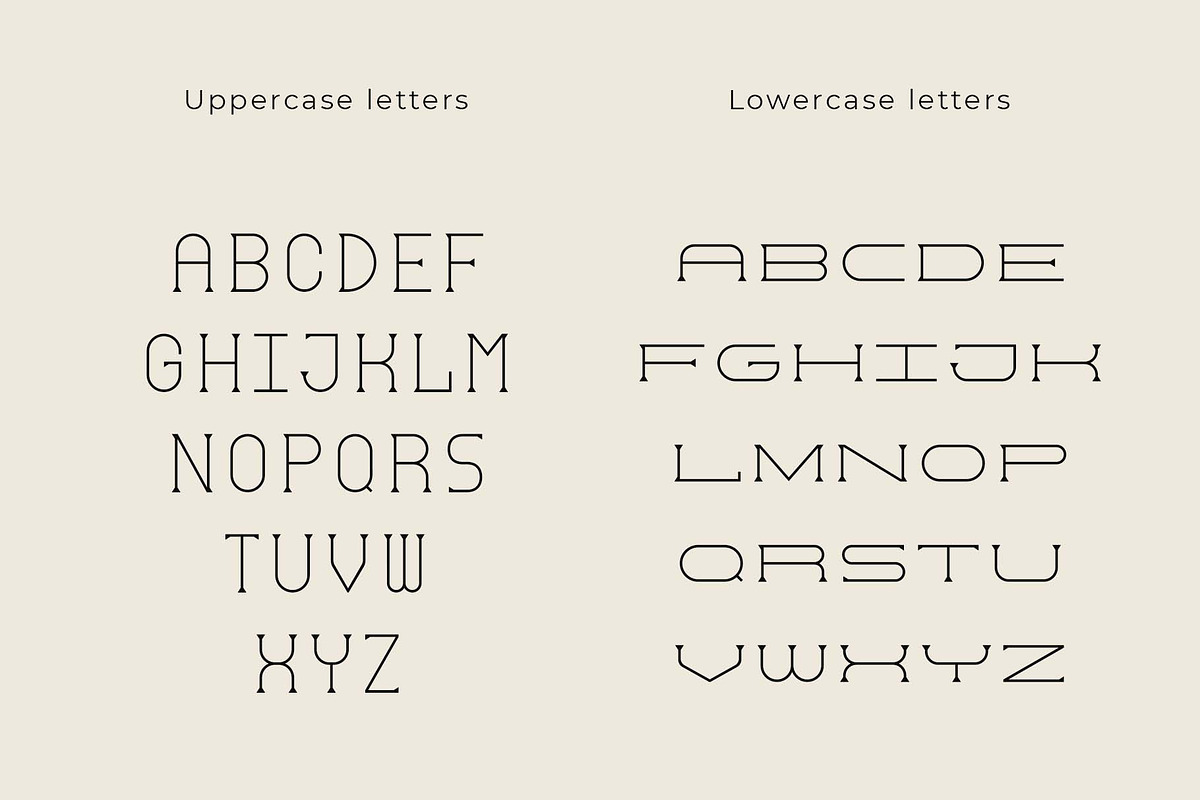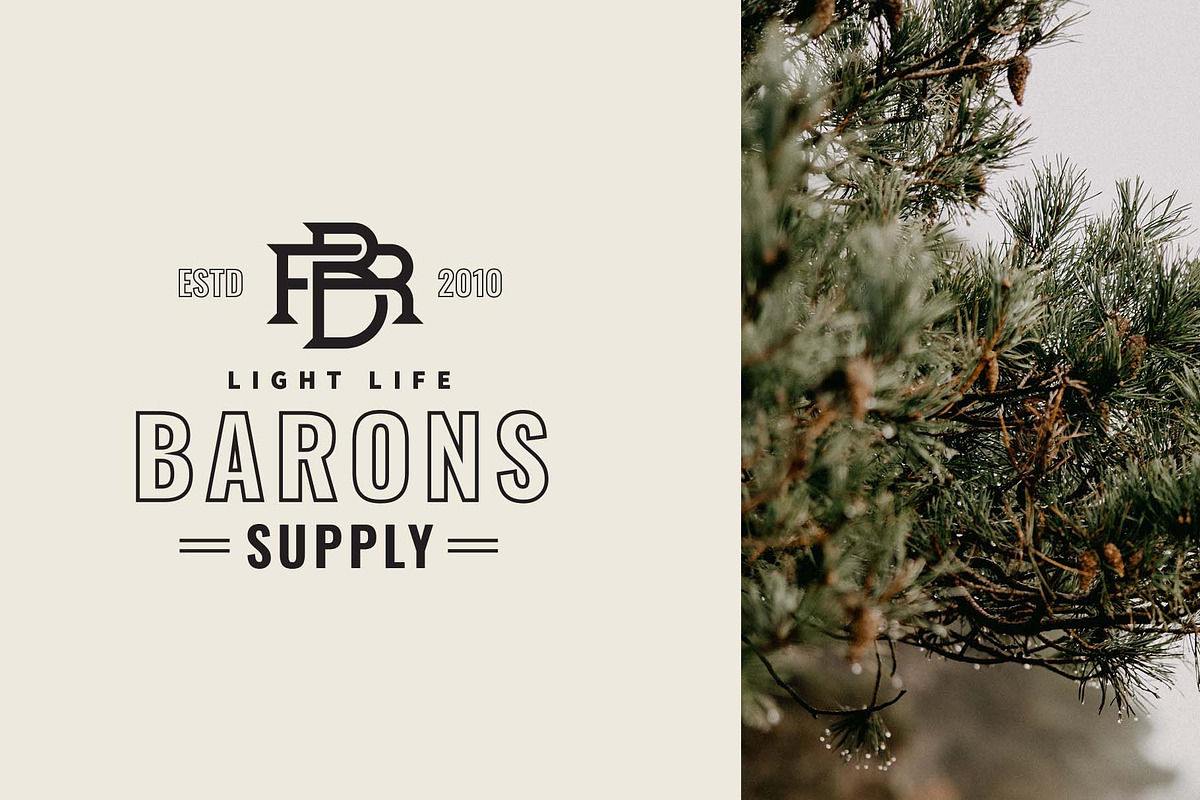
Monogram World Serif is an elegant serif monogram font designed for creating beautiful two-letter monograms in seconds — perfect for wedding invitations, bridal branding, logo design, and minimal packaging.
Simply type an uppercase letter followed by a lower-uppercase letter and the two combine automatically into a balanced, centered monogram. With over 380 ready-made monogram ligatures built in, you get endless elegant combinations without any manual work. The tall, narrow capitals paired with wider, short-bodied secondary letters give every monogram that timeless, refined look.
What's included: Over 380 monogram combinations as ligature glyphs, uppercase and lower-uppercase characters, plus a bonus of 20 pre-made badges and 10 high-resolution textures — everything you see in the presentation.
Perfect for: Wedding invitations and save-the-dates, bridal and boutique branding, elegant logo design, jewelry and beauty brands, stationery, monogram crests, and minimal packaging.